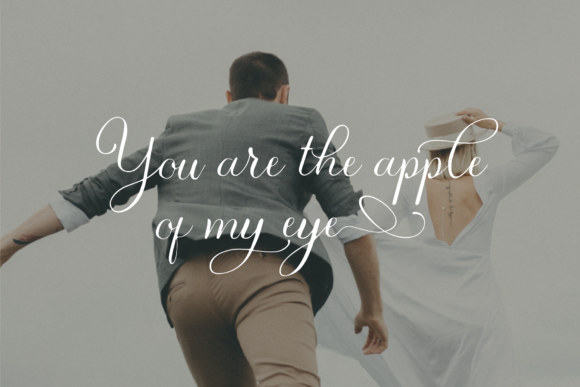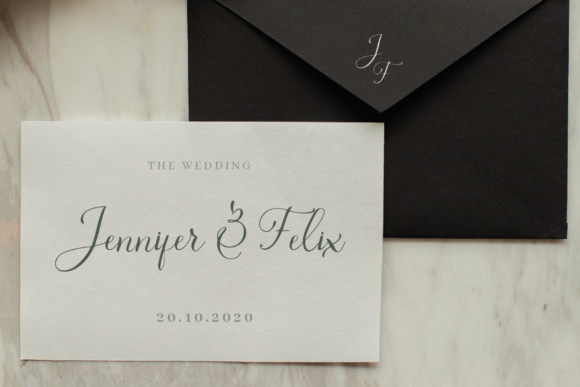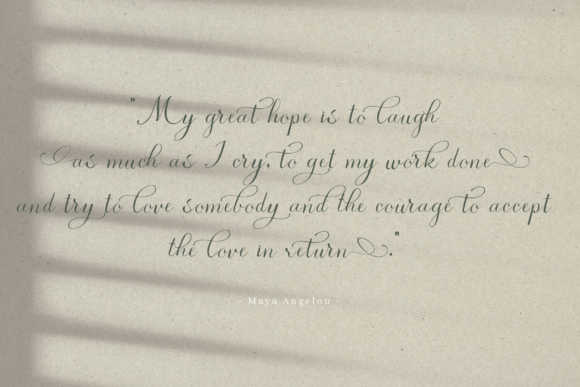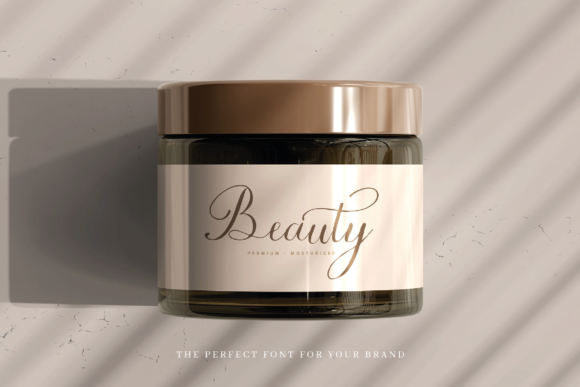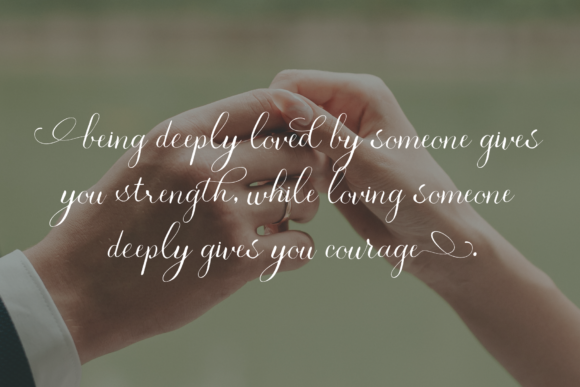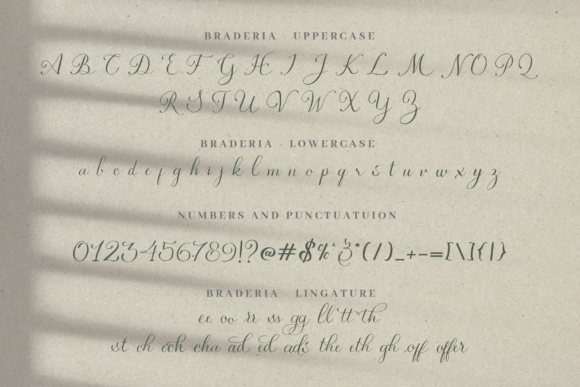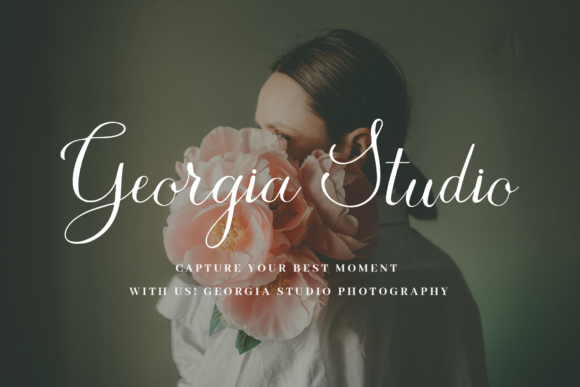
Braderia Script Font
About Braderia Script Font
Braderia Script feels equally charming and elegant. It looks stunning on wedding invitations, thank you cards, quotes, greeting cards, logos, business cards and more. This font is PUA encoded which means you can access all glyphs and swashes with ease!